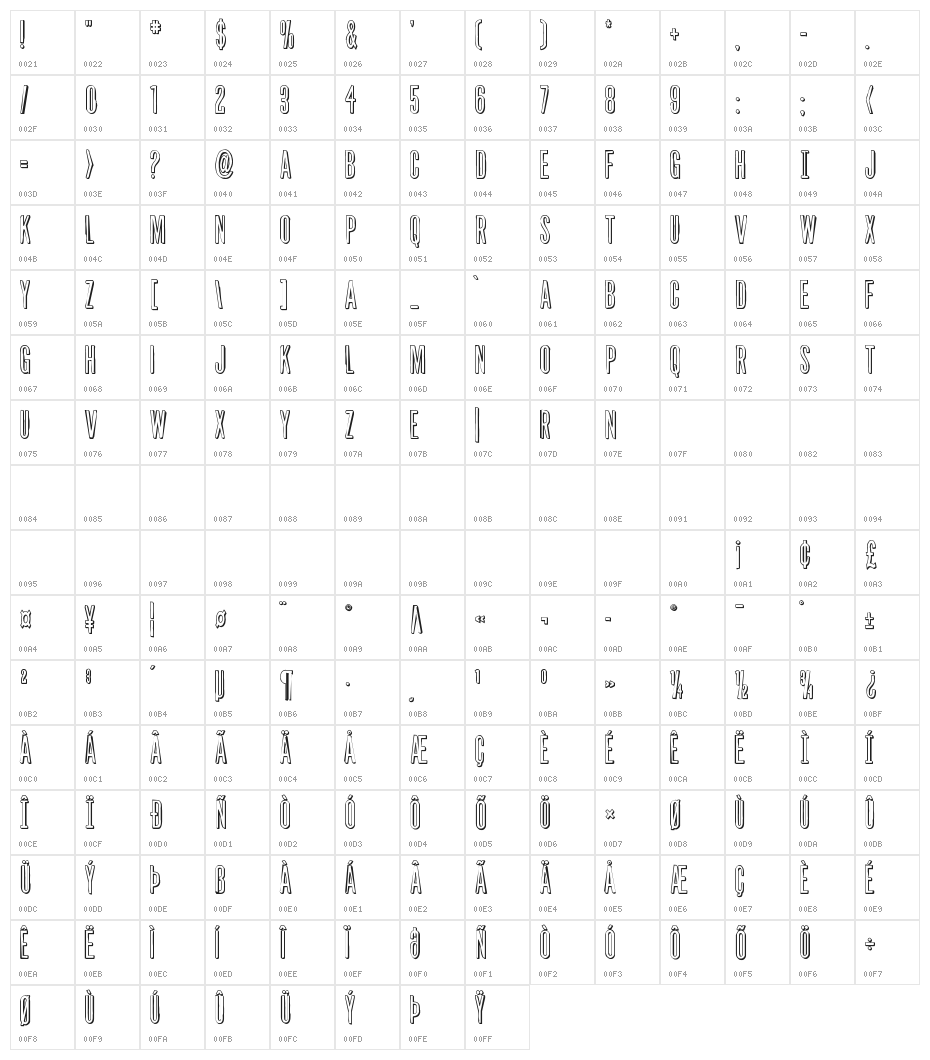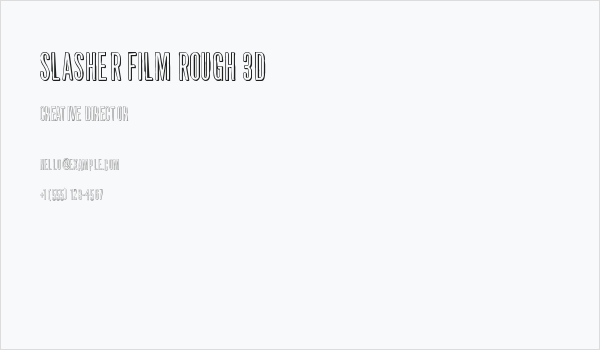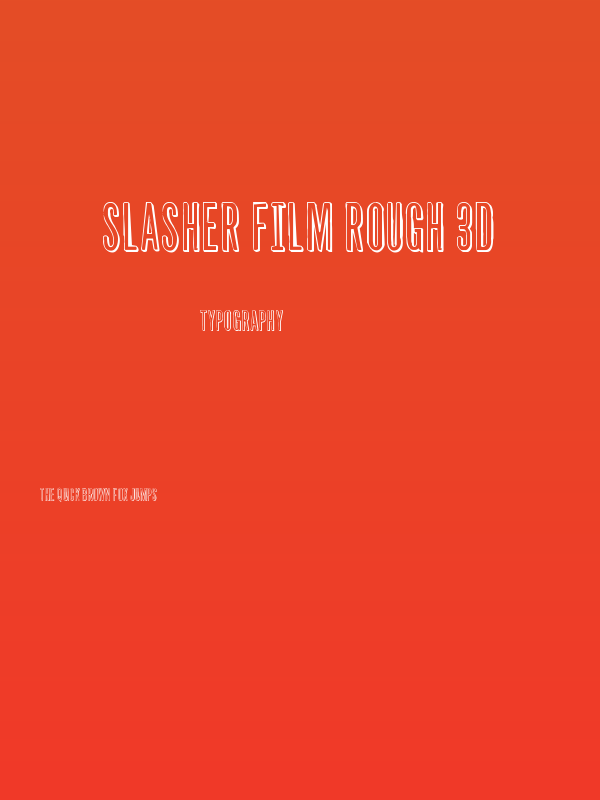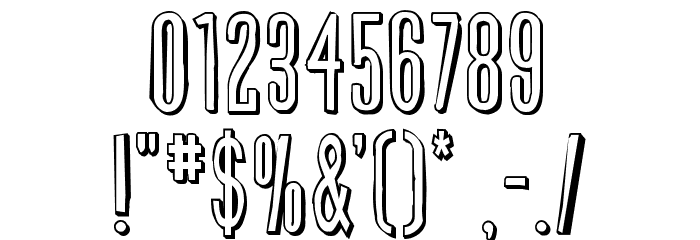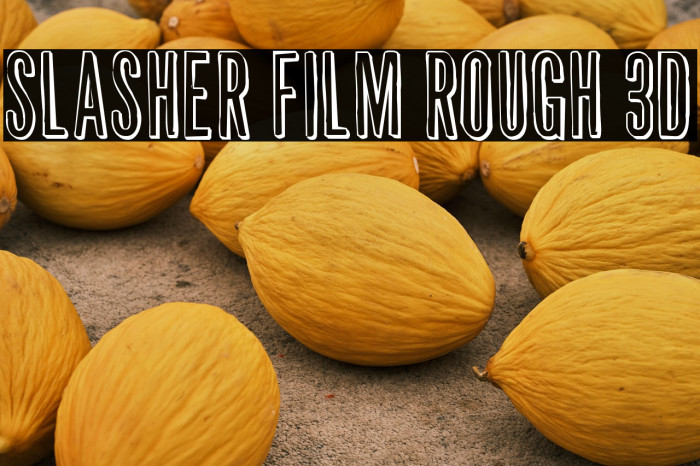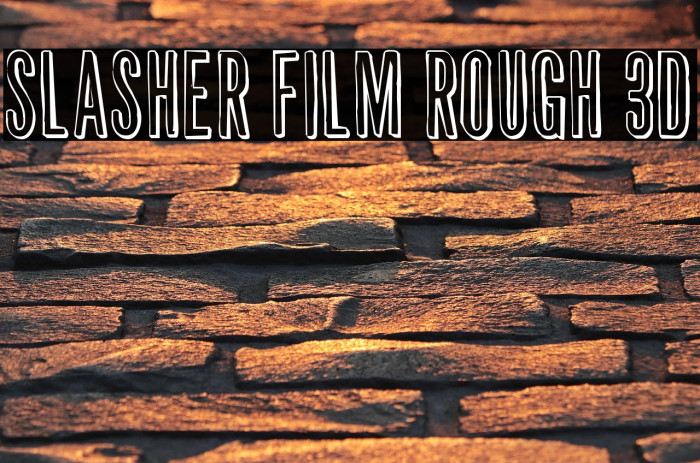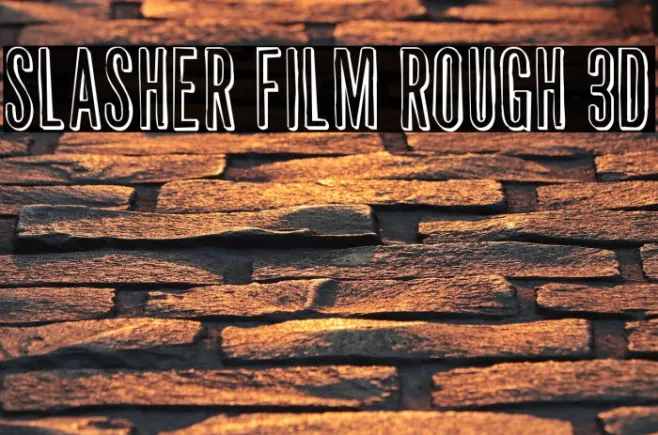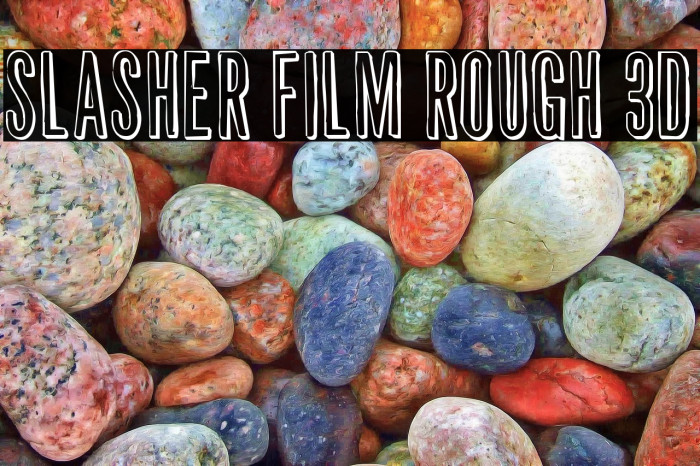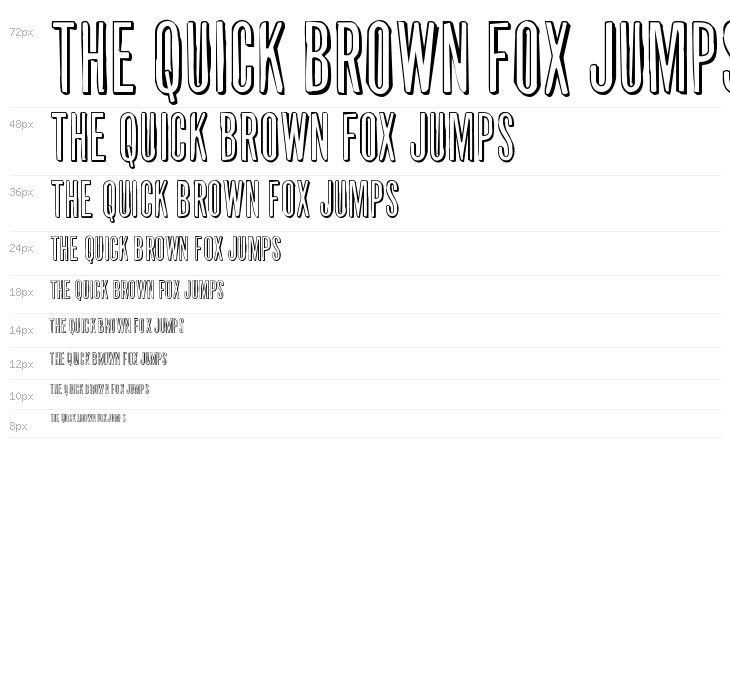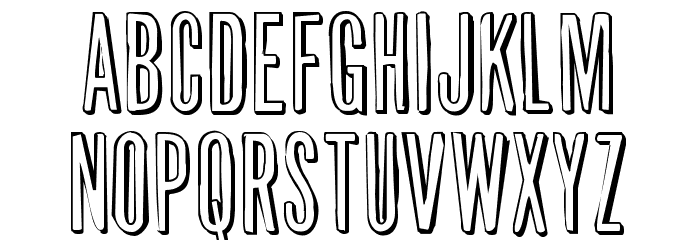
Slasher Film Rough 3D Font
Slasher Film Rough 3D Description
This font features a bold, edgy style with a three-dimensional effect that gives it a rough, hand-drawn appearance. The uppercase and lowercase letters are tall and narrow, with a slight slant that adds to the dynamic feel. The numbers and special characters maintain the same rugged aesthetic, making the font suitable for eye-catching designs. The outlines are uneven, enhancing the rough texture and giving it a unique, artistic flair. This font is perfect for projects that require a dramatic and impactful look, such as horror-themed graphics or bold poster designs.
| Proposed Projects | Ideal for horror movie posters, edgy graphic designs, and bold branding projects. |